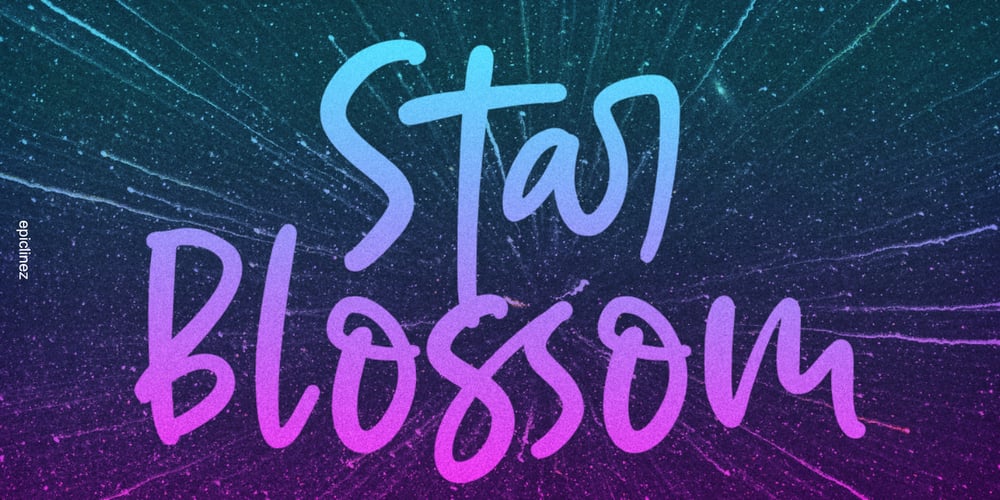
Star Blossom
Star Blossom font
Star Blossom Font Family was designed by Aldy Sidik and published by Epiclinez. Star Blossom contains 1 styles and family package options. Star Blossom is a bold and playful handwritten script font. It is suitable for logo, branding, packaging, apparel, social media, and more.